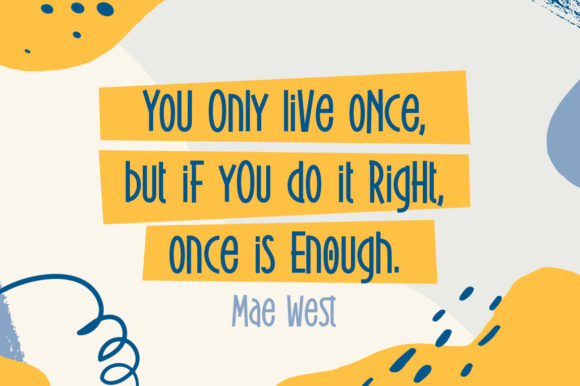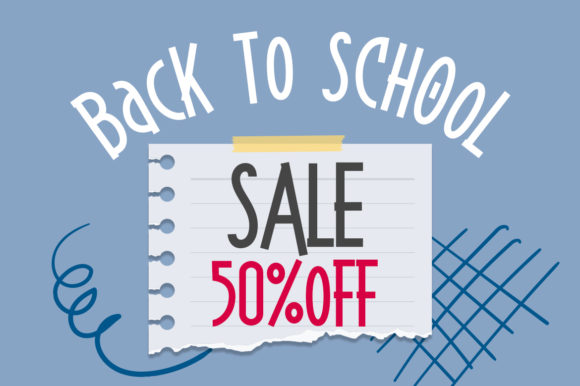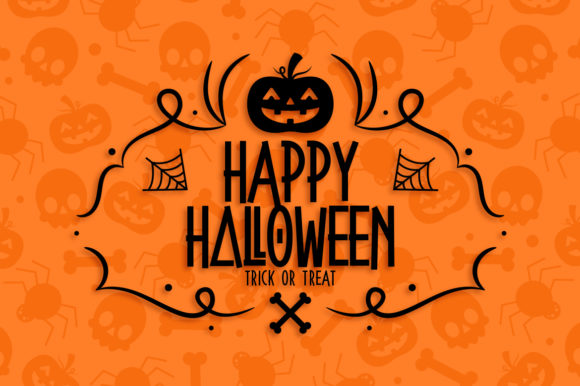
Introduction to MissQueen Font
MissQueen is a simple and playful display font.
Natural and adept, this font will match a wide variety of designs, both formal and informal .